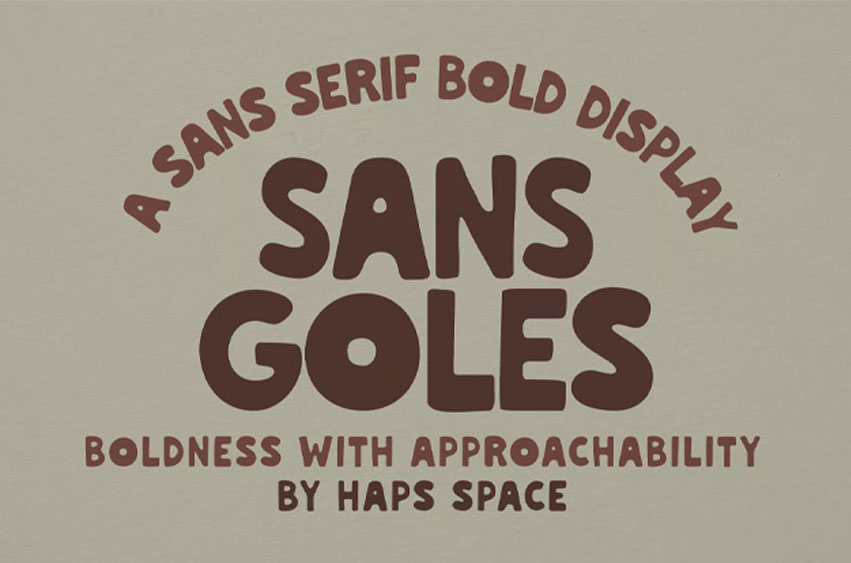
Sans Goles Font is a bold, friendly display font with soft curves and a warm, approachable feel. Strong yet playful, it’s designed to stand out while staying human-centered.
• Bold sans serif display style
• Soft curves with a slightly playful tone
• Clean, high-impact letterforms
• Great readability at large sizes
• Branding & logos
• Posters and headlines
• Packaging & labels
• Editorial and social media graphics
• Creative, lifestyle, and modern designs
• Full multilingual character set
• OpenType features such as ligatures and alternates